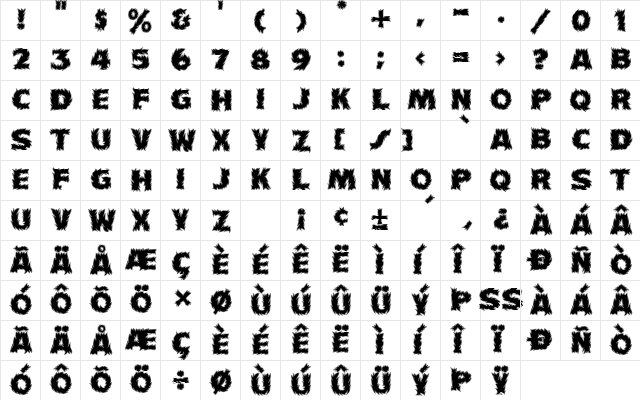
Firecat Contour Medium
Design Context for Firecat Contour Typeface
Firecat Contour is a composed and adaptable typeface that performs quietly and consistently across a wide range of design contexts.